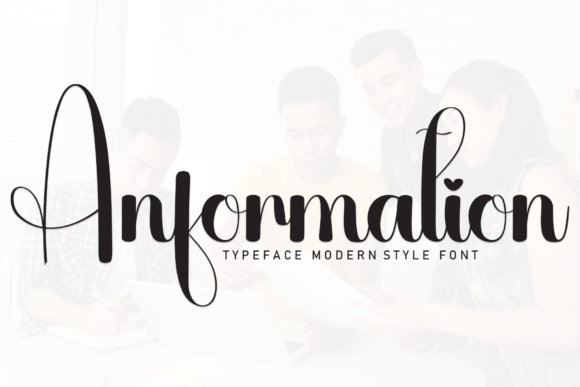
Step into the world of Anformation Font, a remarkable script font family that will transform your designs with its enchanting elegance. Created by the talented William Jhordy, Anformation is a visual delight that will infuse your projects with a touch of playfulness and charm.
With its graceful curves and whimsical strokes, Anformation is a font that speaks to the heart. Its unique character adds a personal touch to any design, making it perfect for creating eye-catching logos, captivating social media posts, and heartfelt invitations. The possibilities are endless with Anformation as your creative companion.
Immerse yourself in the beauty of Anformation, a font crafted with meticulous attention to detail. Its carefully designed characters dance across the page, creating a visual symphony that will leave a lasting impression. Whether you're a seasoned designer or just starting, Anformation is the perfect font to elevate your designs and make a statement.